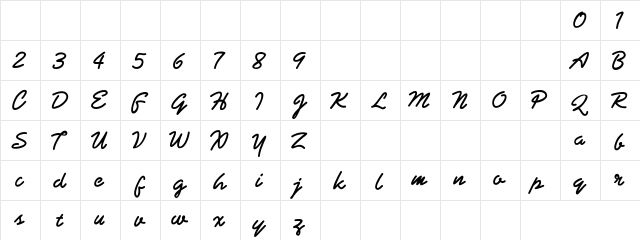
Aljameela Regular
Design Context for Aljameela Typeface
Aljameela is a composed and adaptable typeface that performs quietly and consistently across a wide range of design contexts.